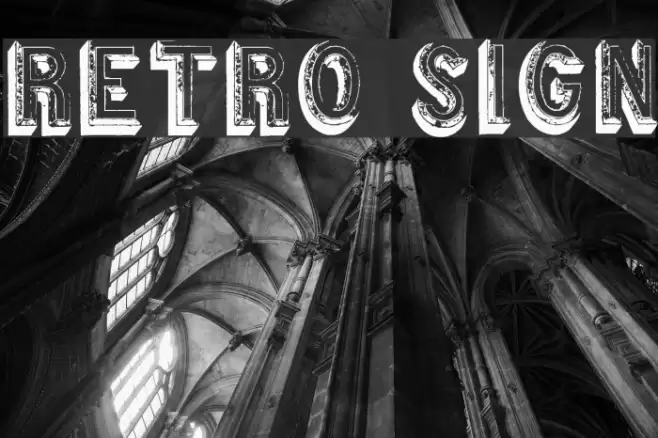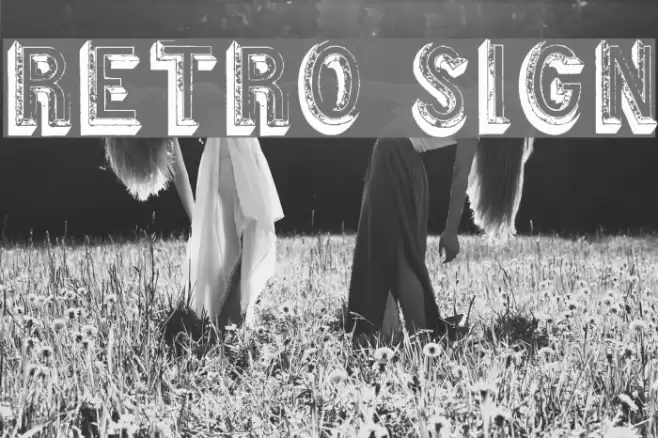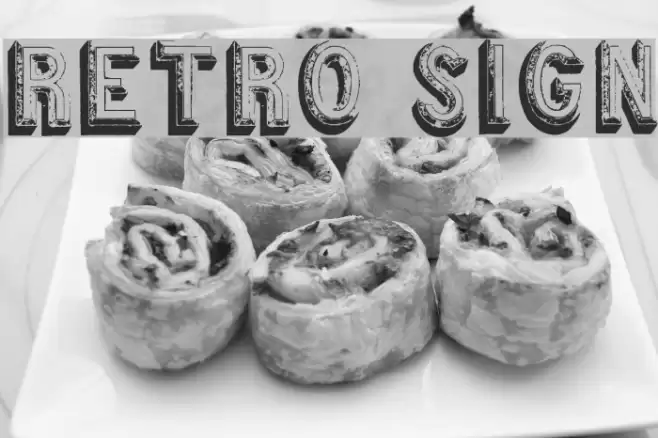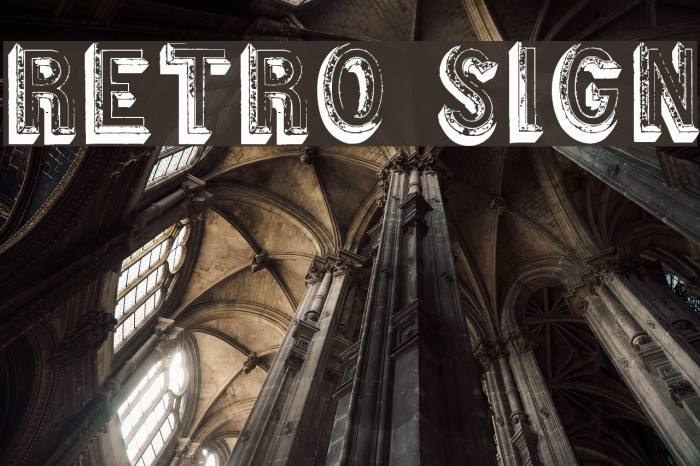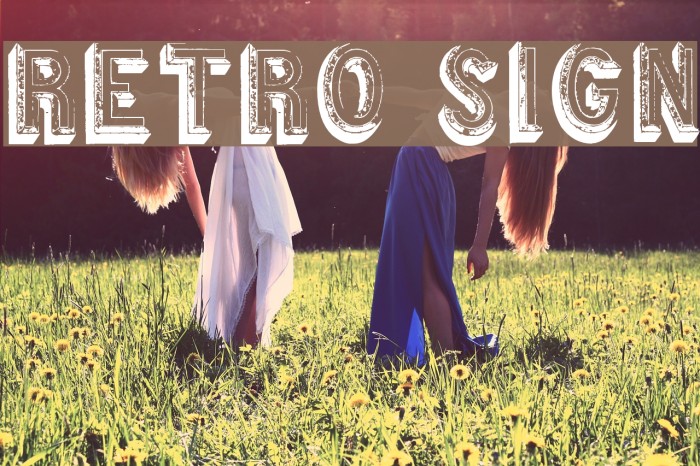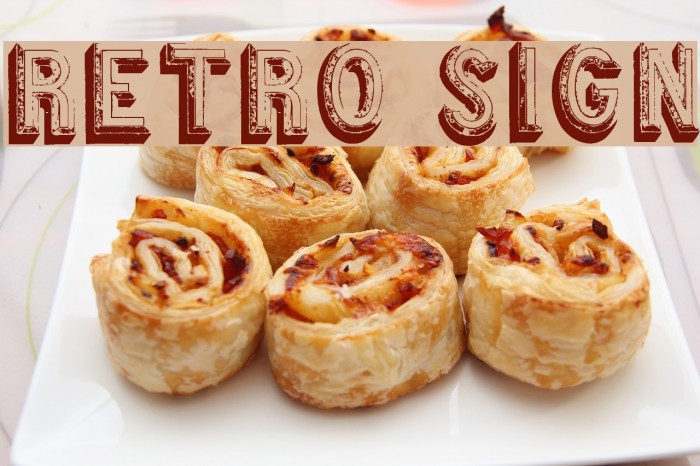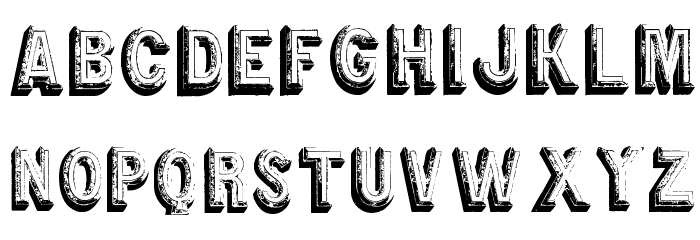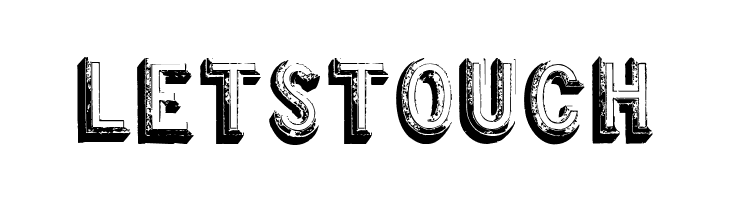
Retro sign Font
Retro sign Description
This font features a bold, three-dimensional design with a distressed texture that gives it a vintage, retro appearance. The letters are capitalized and have a shadow effect that enhances the depth and visual interest. The distressed texture adds a rugged, worn look, reminiscent of old signage or posters. This style is perfect for creating a nostalgic or industrial feel in design projects. The font maintains a consistent width and weight throughout, ensuring readability while still offering a unique aesthetic.
A bold, distressed 3D font with a vintage, retro vibe from Uncategorized fonts.
- Proposed Projects: Ideal for vintage posters, retro-themed branding, signage, and album covers.
- Overall Style: Vintage